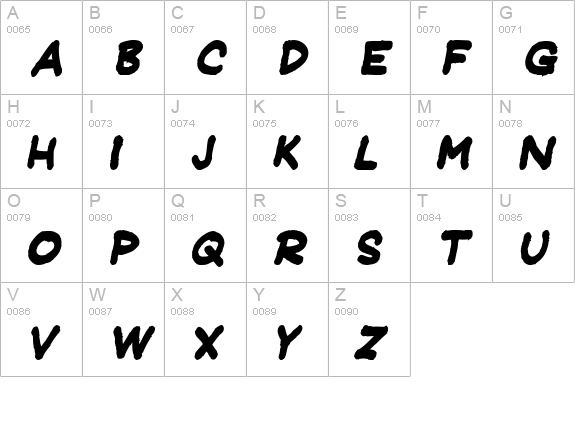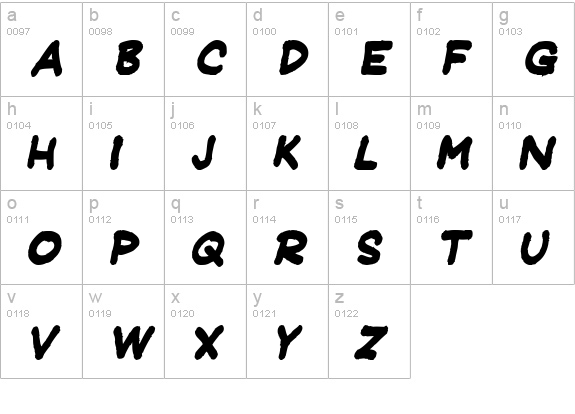
JeffreyPrint JL Bold Italic is a strong, high-contrast, italic variant in the JeffreyPrint typeface family \xE2\x80\x94 well suited to headlines, attention-grabbing titles, and strong calls-to-action.
Introducing JeffreyPrint JL Bold Italic font - a bold and dynamic typeface that exudes strength and elegance. Ideal for making a bold statement in your design projects, this font features a unique blend of boldness and sophistication. The slanted italic style adds a touch of flair and modernity, making it perfect for creating eye-catching headlines, logos, posters, and more. What makes JeffreyPrint JL Bold Italic font even more appealing is that it is available for free download at FontsMarket.com. This means you can easily access this stylish font and incorporate it into your creative projects without any hassle. Elevate your designs with the bold and captivating JeffreyPrint JL Bold Italic font today!